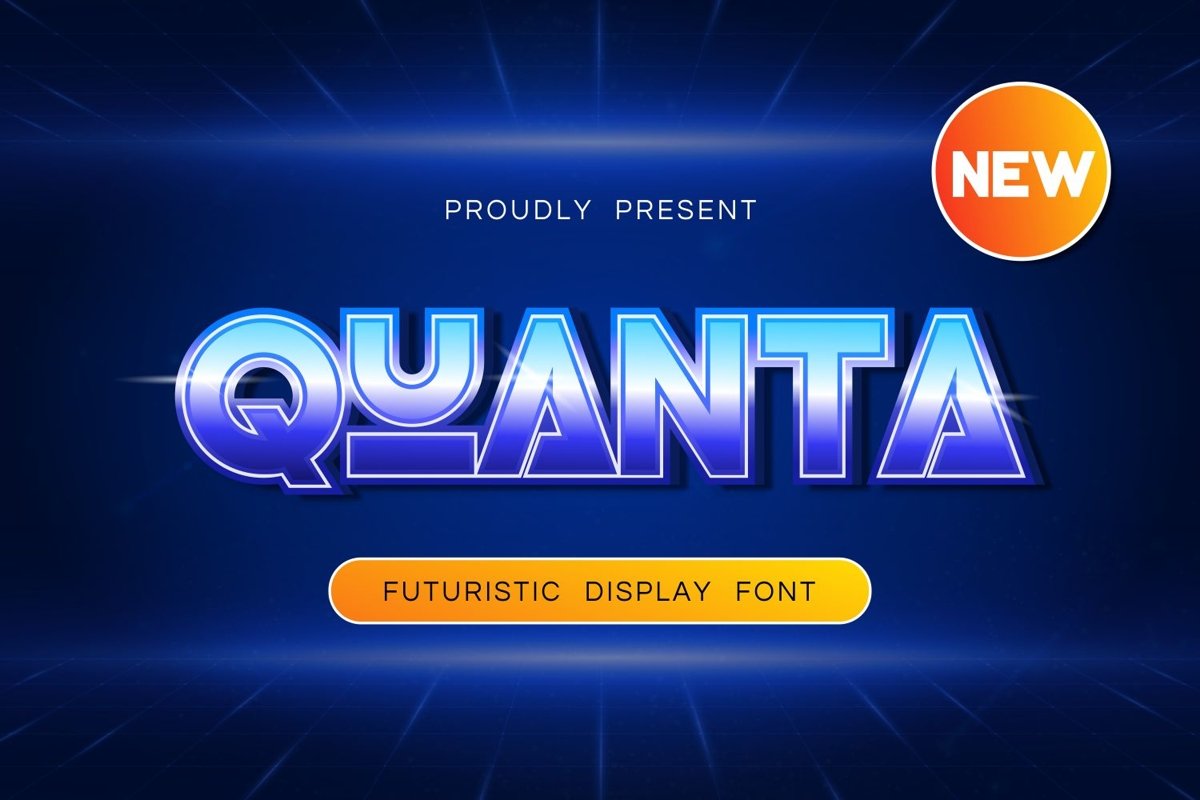
Quanta is san serif display come with futuristic themes. This font looks a good and simple shape. It matches applies in some designs such as the logotype, branding, packaging, quotes, poster, shirt, book, invitation and more custom design. The features uppercase, lowercase, numeral, punctuation & symbol, multilingual support.